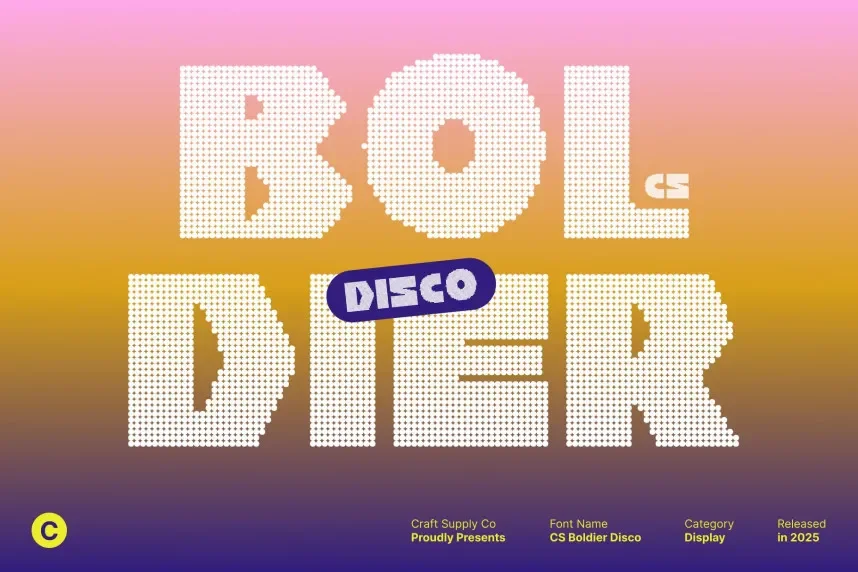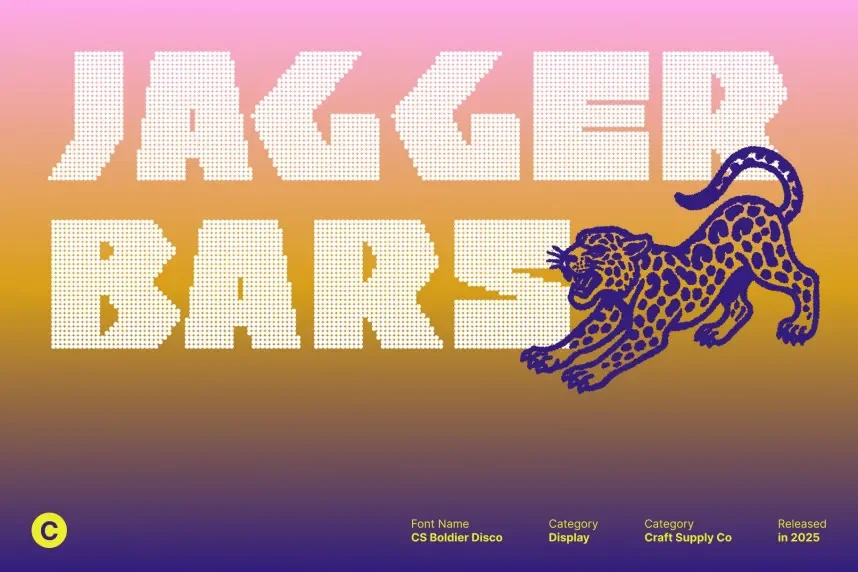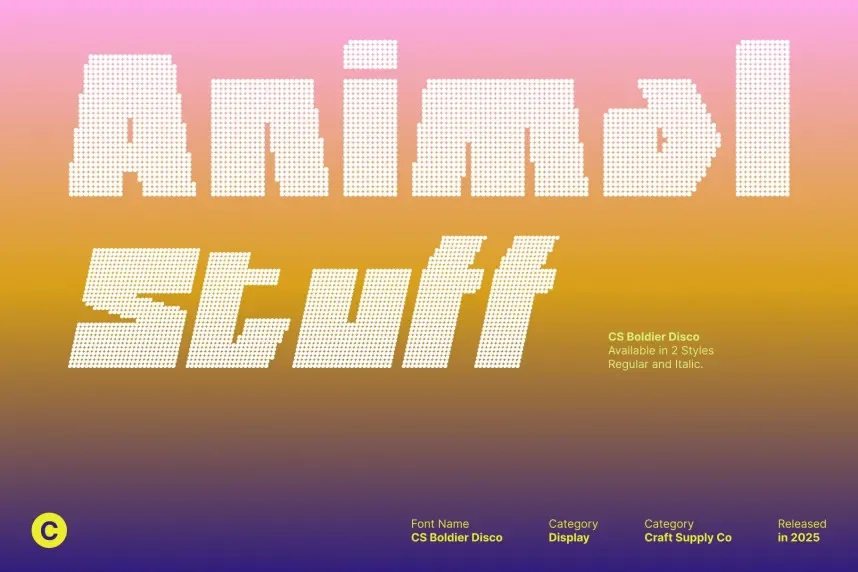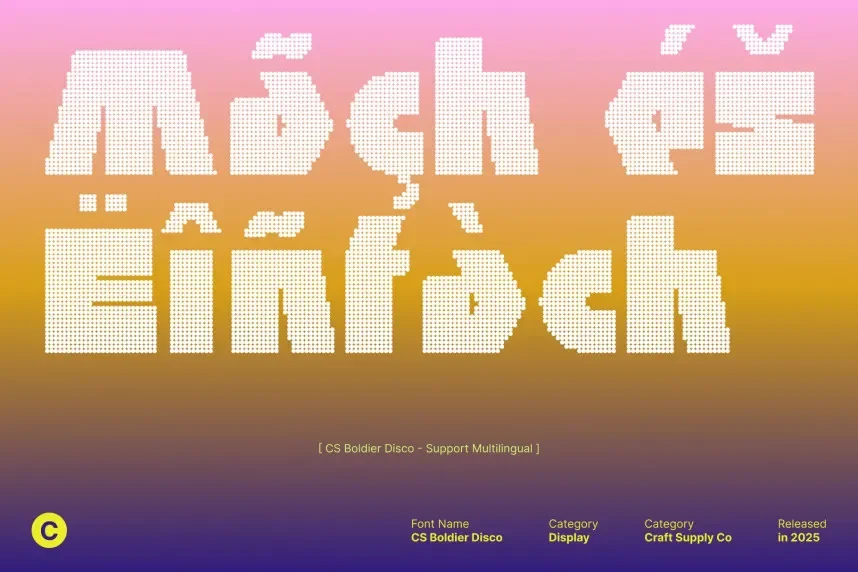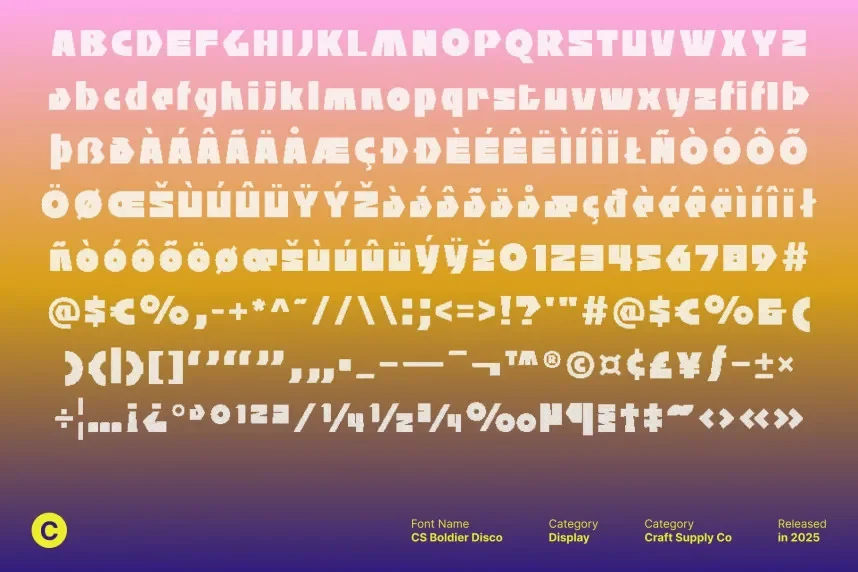
CS Boldier Disco Font is a playful, bold typeface inspired by 1970s disco aesthetics. With its rounded edges and vibrant character, it’s ideal for retro-themed designs, event posters, and party branding. The font captures the energetic and lively essence of the disco era.